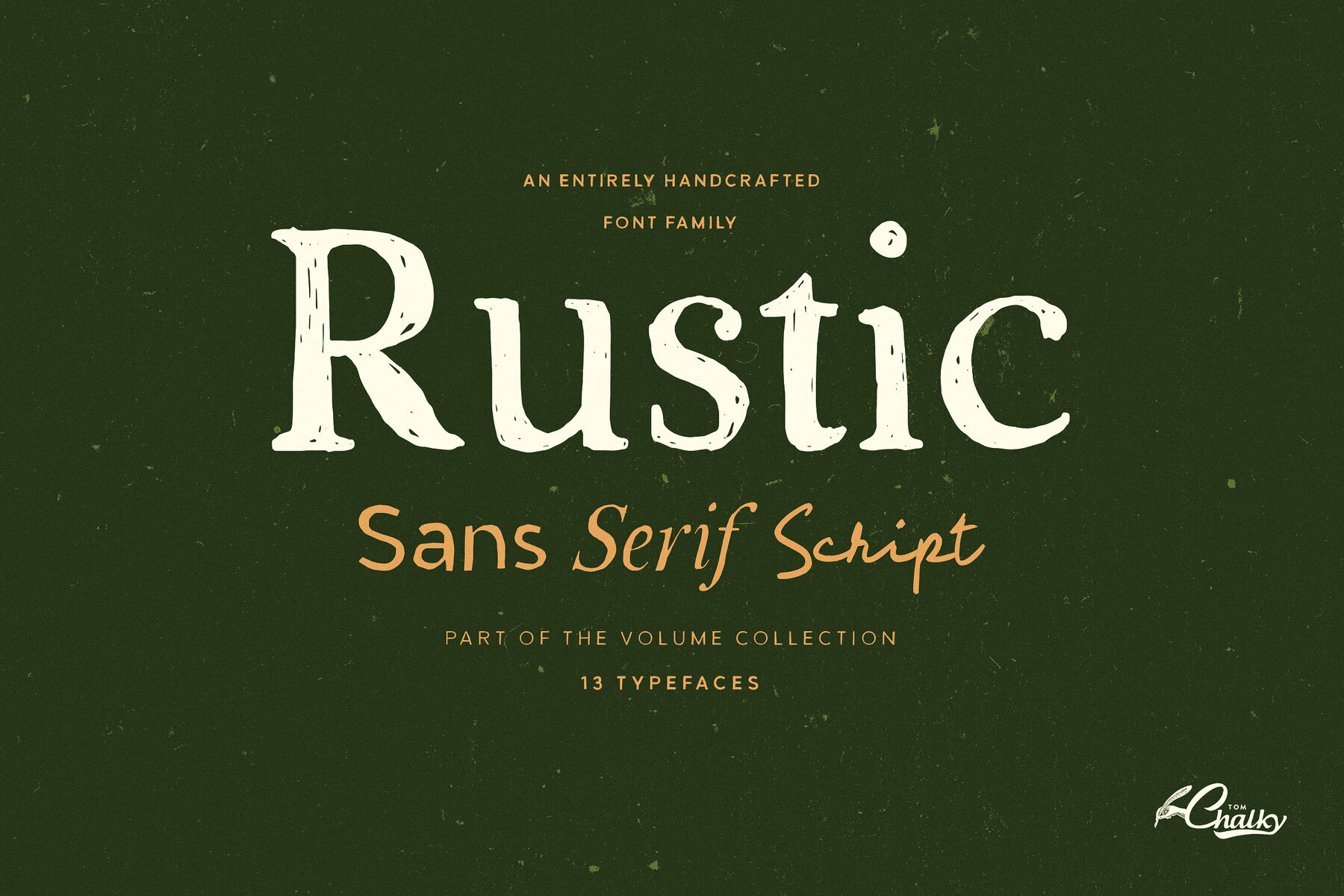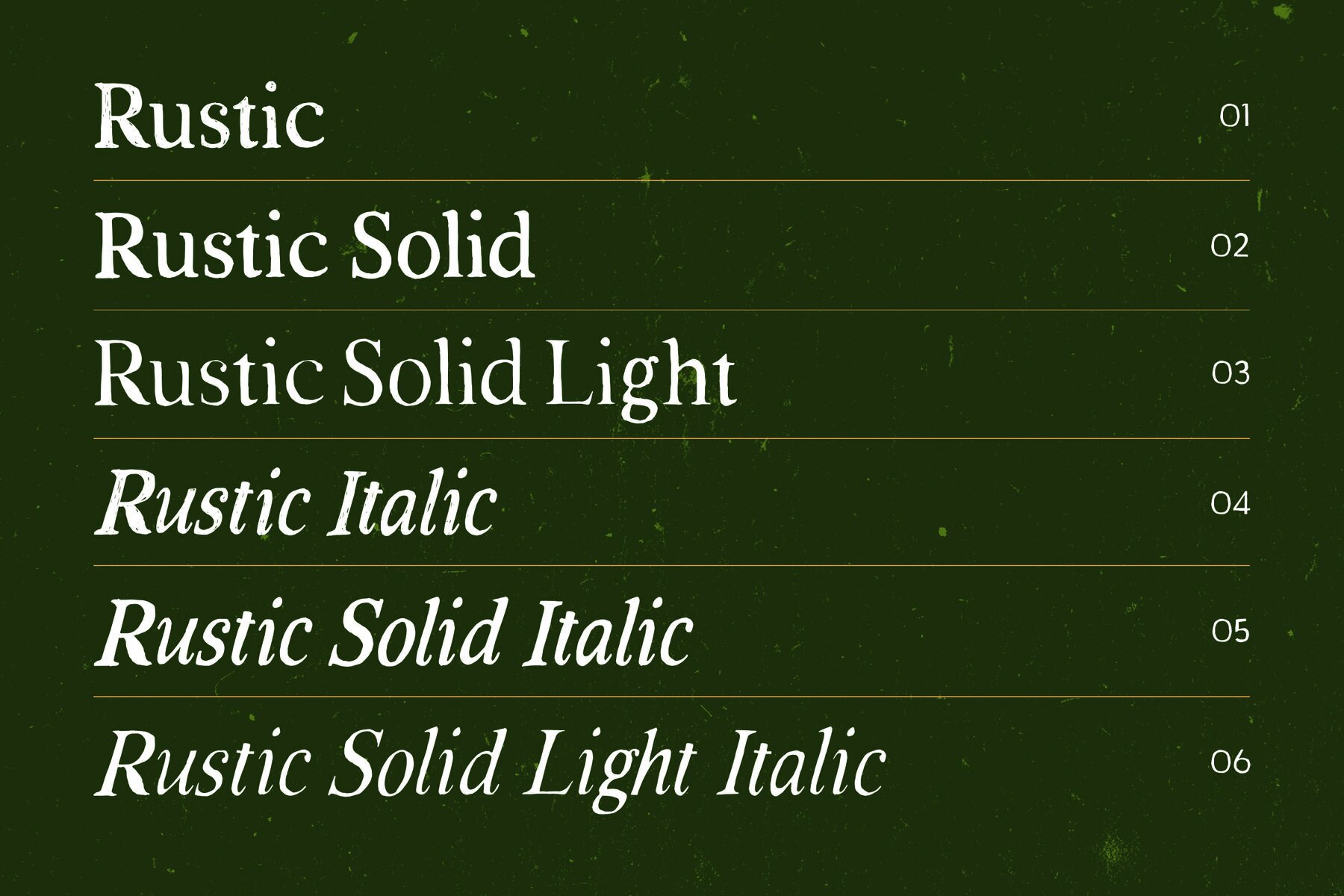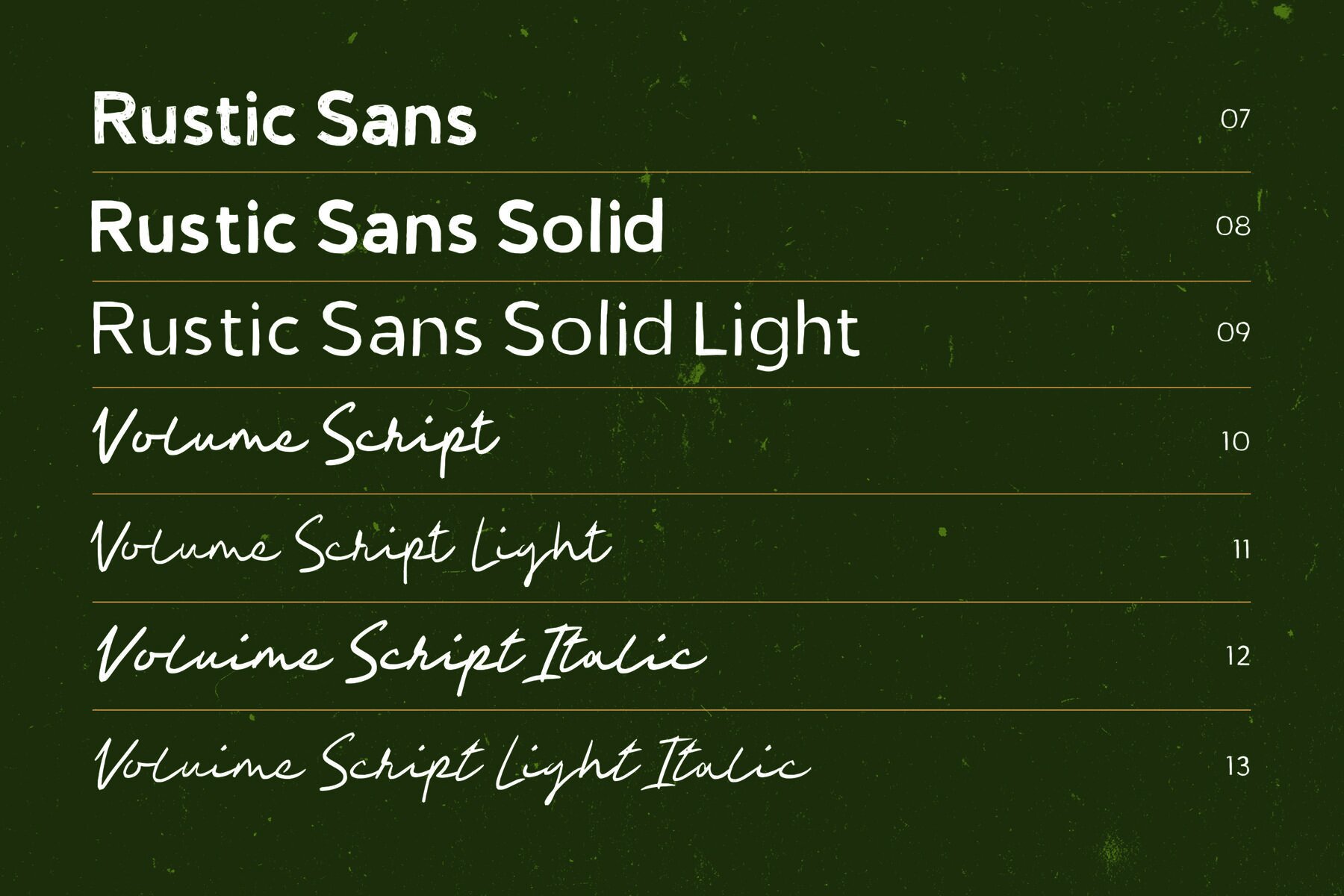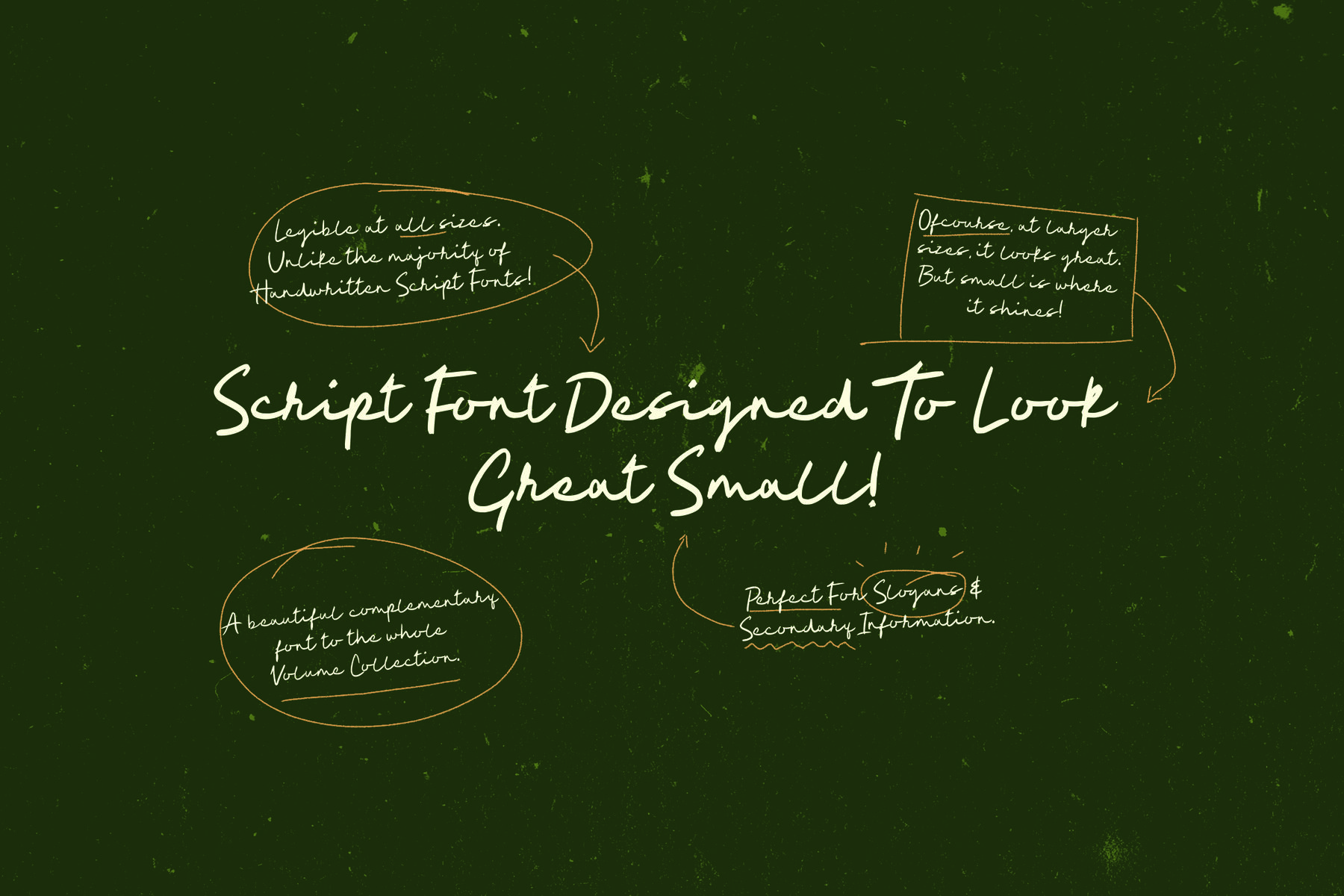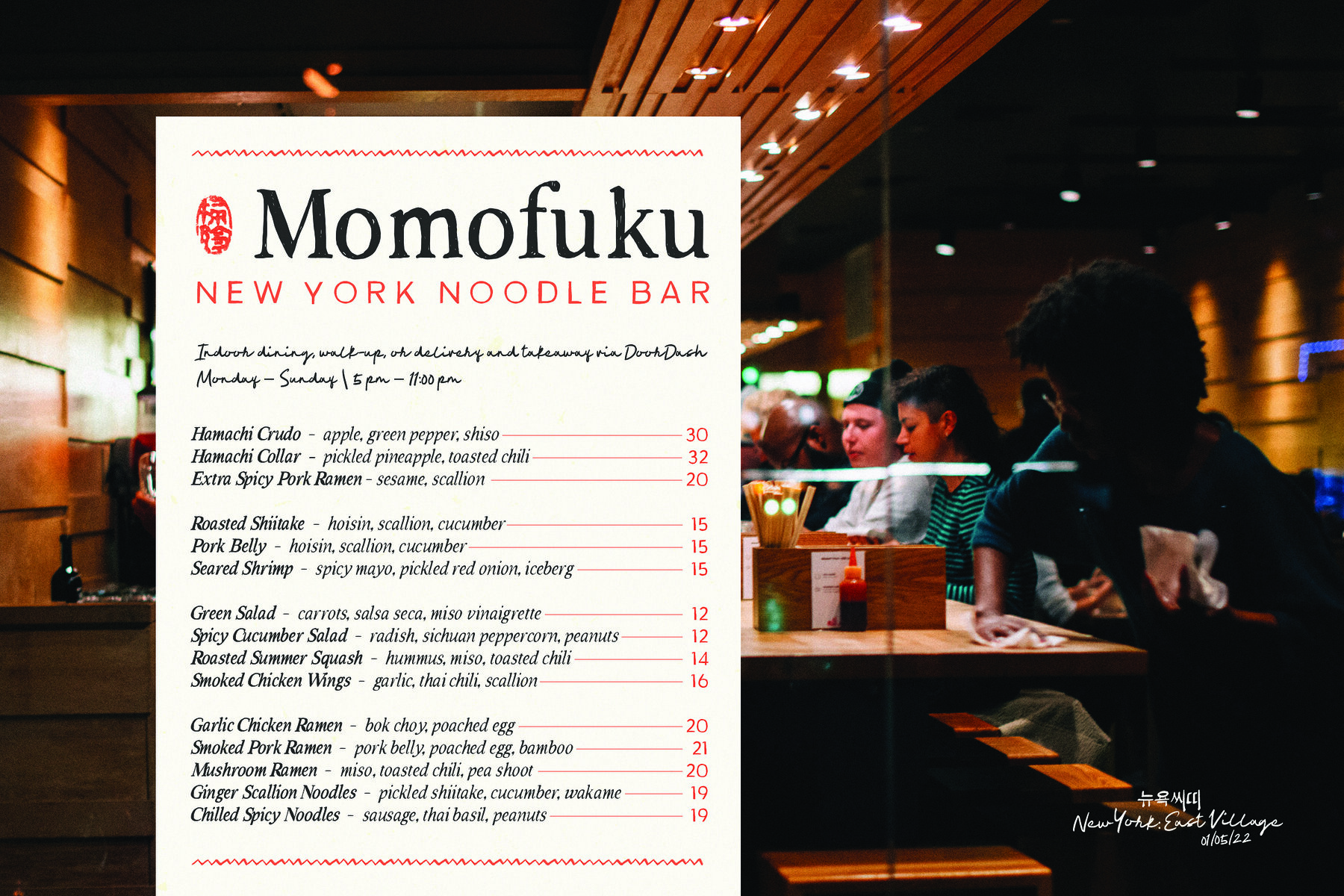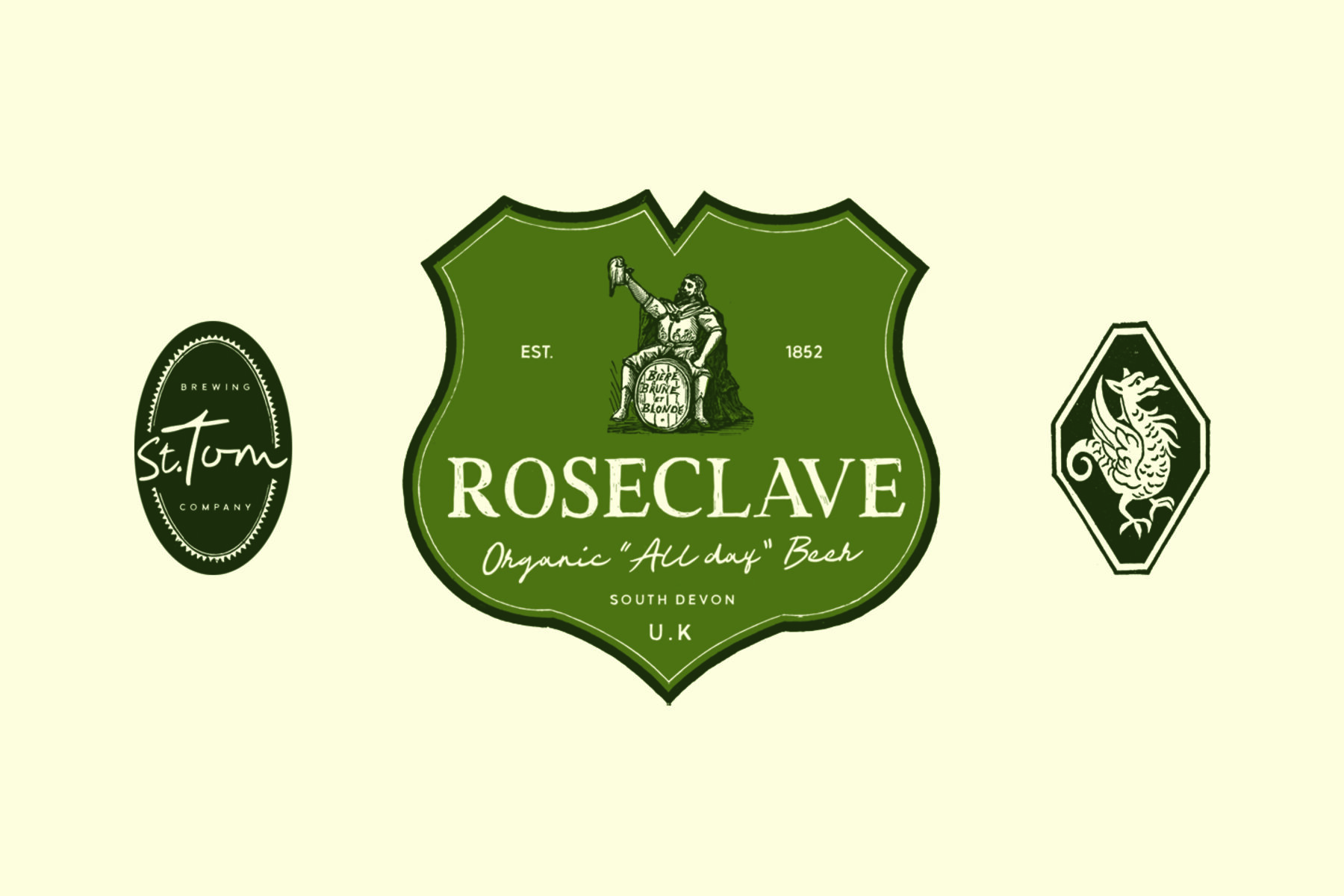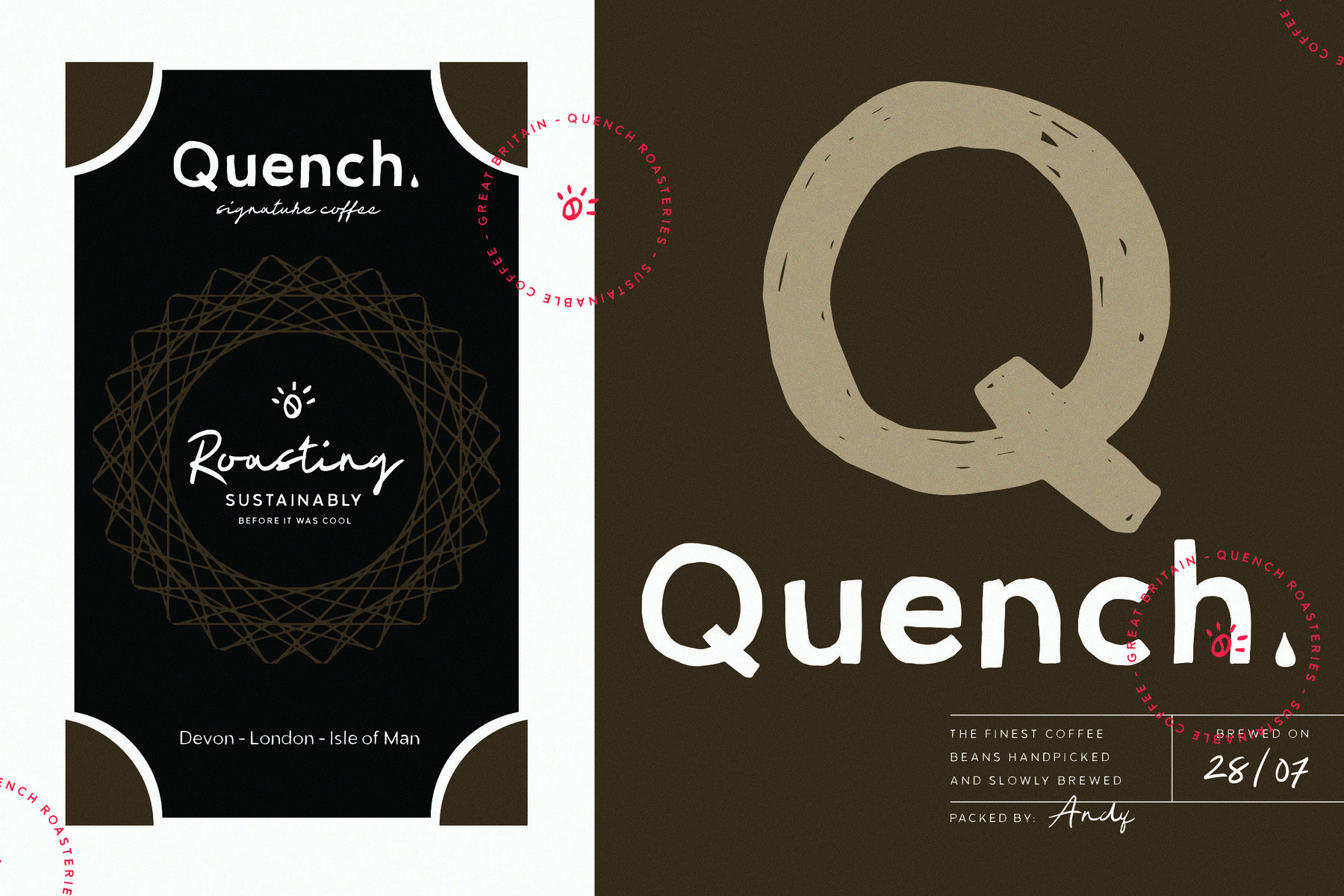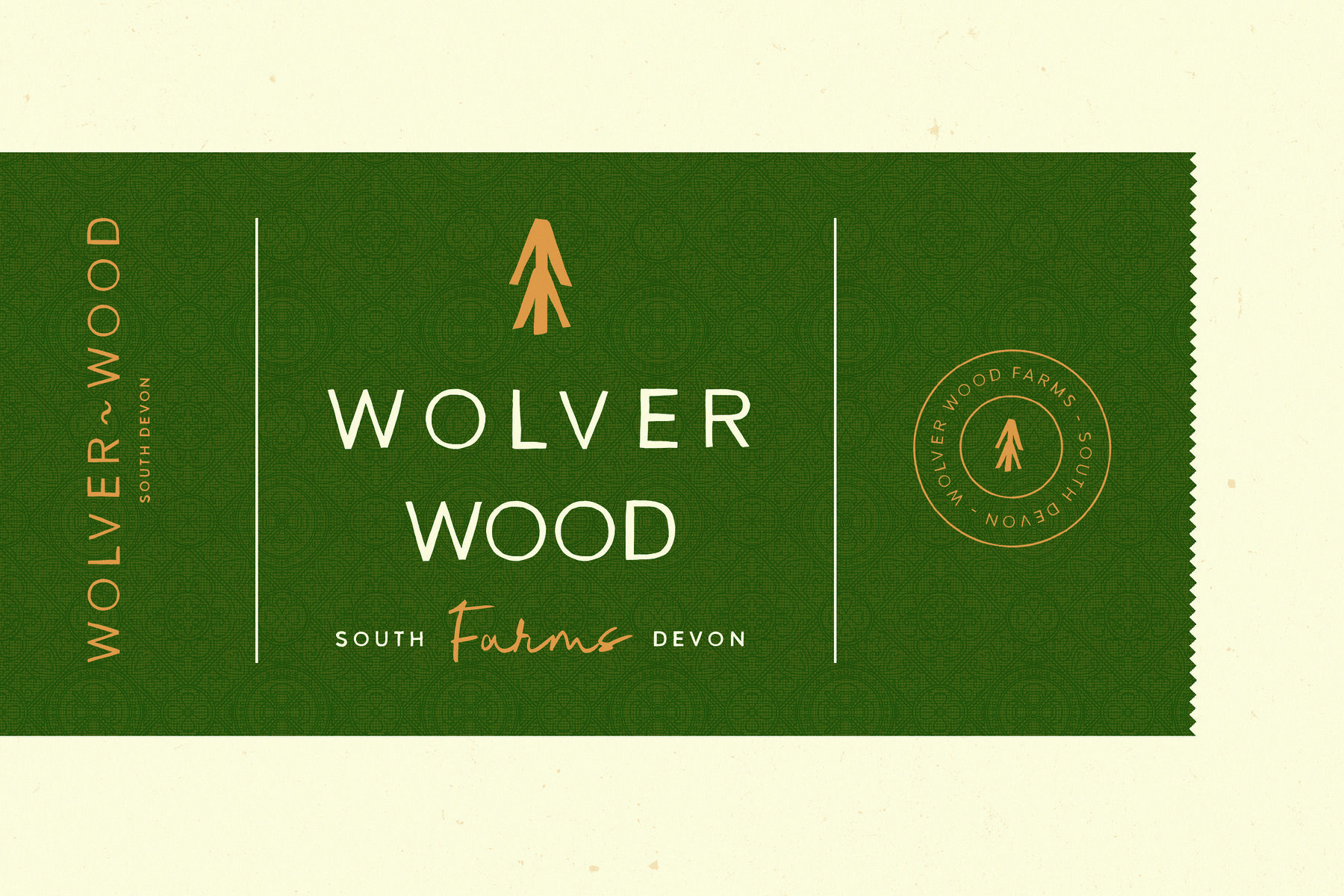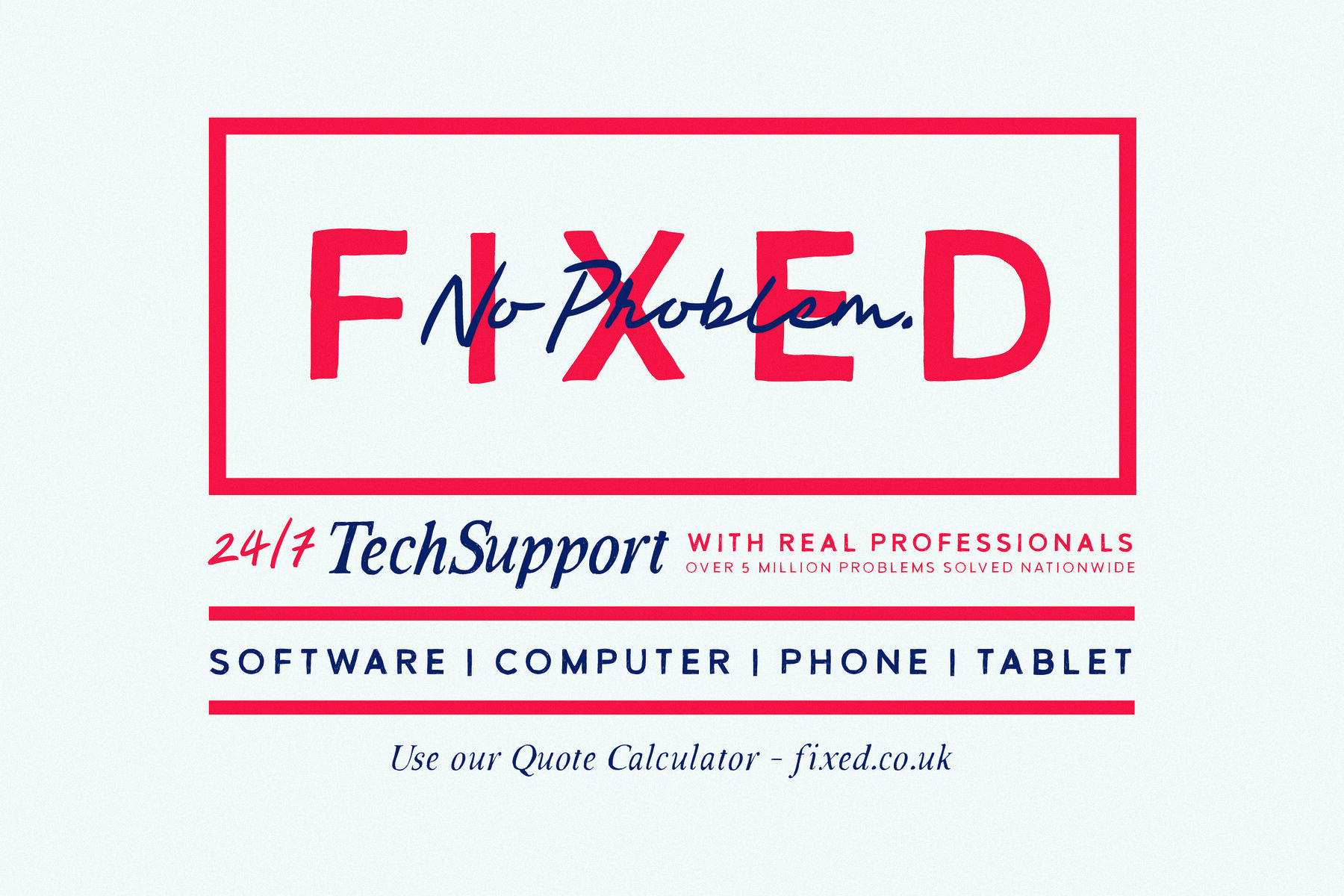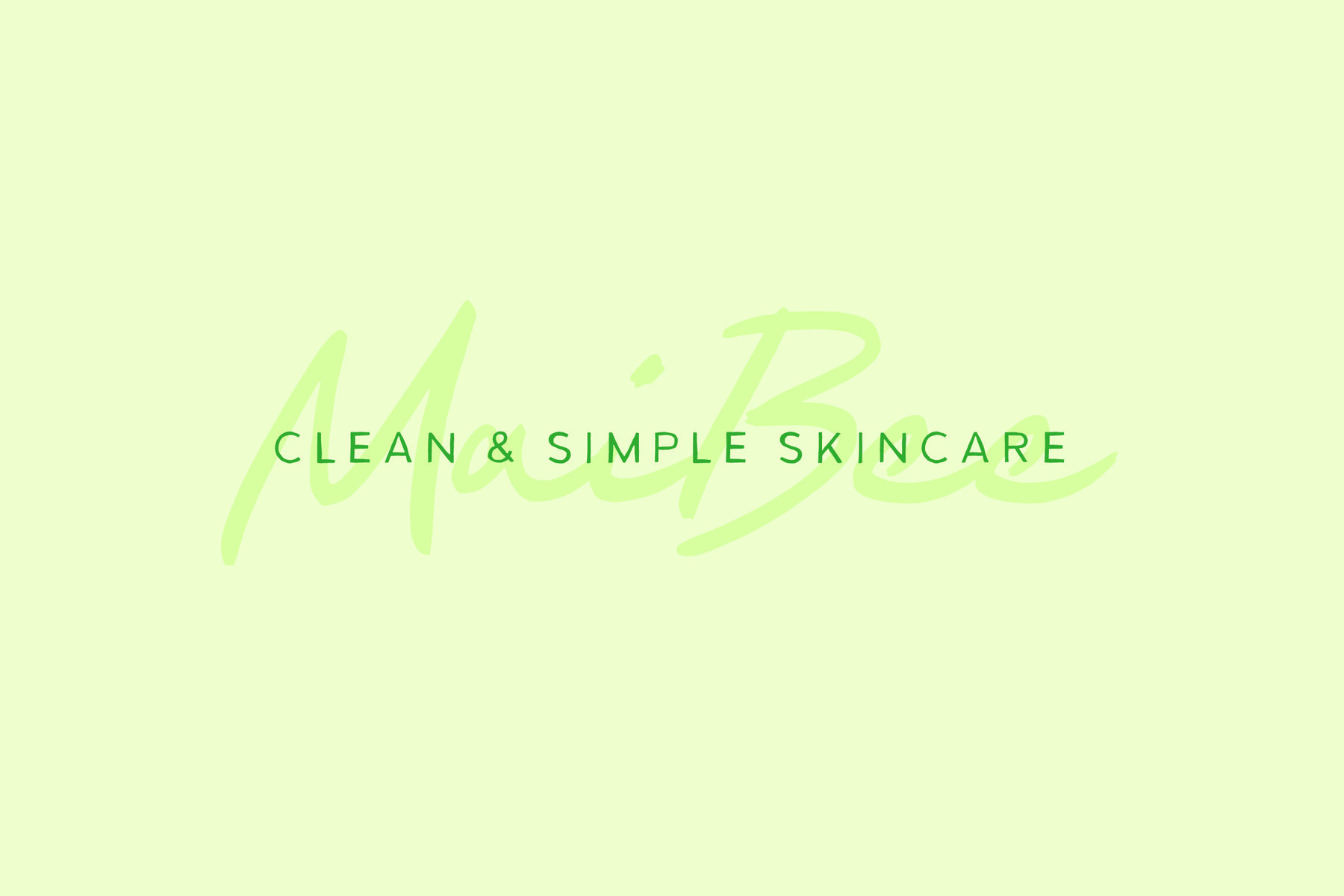
Rustic Font
Introducing Rustic 13 Handcrafted fonts designed to complement one another beautifully, this collection is perfect for projects involving organic/handmade/local/human-centric products and services.